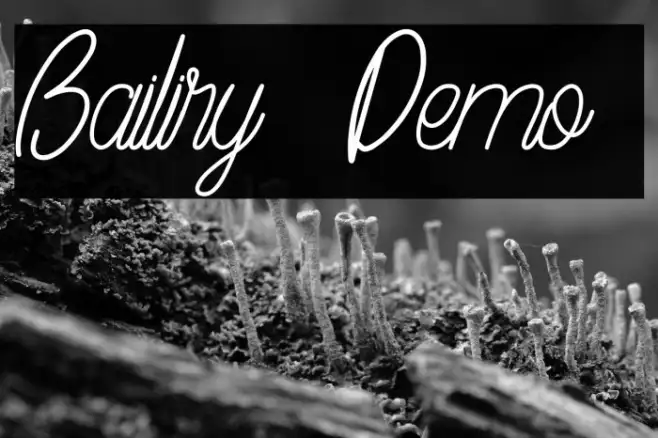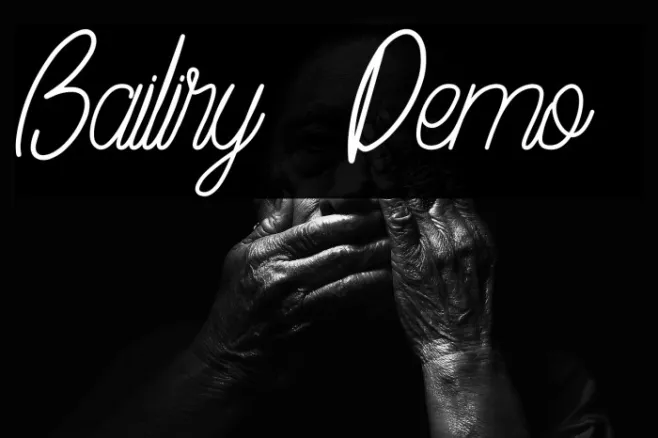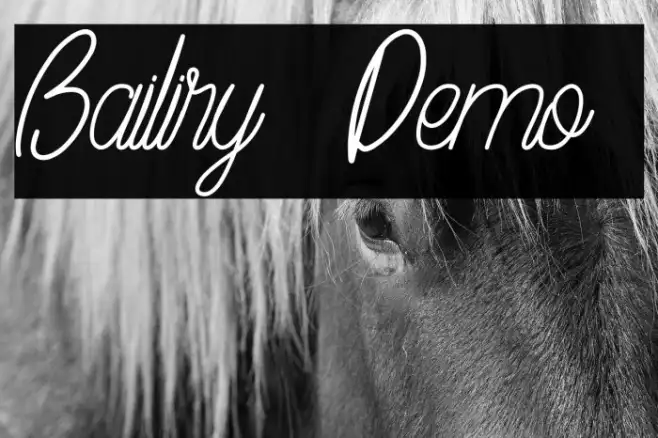
Bailiry [Demo] Font
Bailiry [Demo] Description
This font features a flowing, cursive style with elegant, elongated strokes that give it a sophisticated and artistic appearance. The characters are interconnected, creating a seamless and fluid look that is both stylish and readable. The uppercase letters are bold and prominent, while the lowercase letters maintain a consistent flow, enhancing the overall aesthetic. The font's design is reminiscent of handwritten calligraphy, making it ideal for projects that require a personal touch. Its unique style is suitable for a variety of creative applications, from invitations to branding materials.
| Proposed Projects | Ideal for wedding invitations, greeting cards, branding, and artistic projects. |